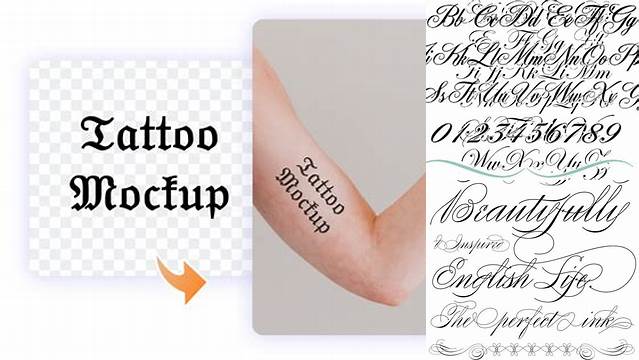
Thin Cursive Tattoo Fonts Generator: Design Your Elegant Tattoo
Are you guys looking to get some ink that's both elegant and personal? You've probably stumbled upon the world of thin cursive tattoo fonts! These fonts are seriously trending, and for good reason. They offer a delicate and graceful way to express yourself through body art. This guide dives deep into everything you need to know about thin cursive tattoo fonts and how a generator can help you find the perfect design. We'll explore the nuances of these fonts, why they're so popular, and how to use a generator to bring your tattoo vision to life. So, let's get started and uncover the beauty of thin cursive tattoos!
What Makes Thin Cursive Fonts So Special?
Alright, let's talk about what makes thin cursive tattoo fonts so darn appealing. These fonts have a unique charm that combines sophistication with a touch of intimacy. Unlike bolder, more blocky fonts, thin cursive fonts exude a sense of fragility and elegance. This makes them perfect for tattoos, especially those meant to be meaningful and personal. When it comes to expressing feelings, names, quotes, or special dates, thin cursive fonts can convey a whole lot of emotion. The flowing lines and delicate strokes create a visually stunning effect, making the tattoo appear like a piece of art that flows seamlessly on your skin. They often look like handwritten notes, adding a personal touch that feels extra special. Thin cursive fonts aren't just about aesthetics; they're also versatile. They can be adapted to various styles and sizes, whether you're looking for a small, discreet tattoo or a larger, more elaborate design.
Consider the way the letters dance across your skin, like a gentle whisper that's always there, reminding you of what's important. This style of font is also super popular because it tends to age well. While some tattoo styles can fade or blur over time, the simplicity and fine lines of thin cursive fonts often retain their clarity, making them a good option for long-term wear. Plus, with advancements in tattoo technology and the skills of experienced tattoo artists, the fine lines can be crafted with incredible precision. This means the intricate details and elegant curves of the font can remain crisp and defined for years to come. Think about it: a beautiful, timeless piece of art that tells a story or honors someone or something you love. This is the magic of a well-chosen thin cursive tattoo.
Why Choose Thin Cursive for Your Tattoo?
So, why should you opt for a thin cursive tattoo? There are many reasons! First off, it's a classic choice that’s always in style. Unlike some tattoo trends that come and go, thin cursive fonts have a timeless appeal. They’ve been popular for years and will likely remain so for many more, making them a safe bet if you want a tattoo that you won't regret down the road. Secondly, their elegance is unmatched. The flowing script adds a touch of sophistication that is hard to beat, making your tattoo look like a piece of beautiful artwork. The delicate lines and curves create a sense of movement and grace, enhancing the overall visual impact. The versatility of thin cursive fonts is another big plus. They can fit any design idea, and the design can be adapted to fit any body part. You can have it as a small, delicate piece on your wrist or a larger, more elaborate design on your back – the choice is yours! Furthermore, thin cursive fonts are very customizable. You can personalize your tattoo by choosing a font that reflects your personality. With so many fonts to choose from, you're sure to find one that matches your style.
When you are looking for a tattoo font, think about what you want to express. Are you going for a romantic vibe? Maybe you want something that feels personal and intimate. A thin cursive font can deliver all of this and more. It gives you a way to wear your heart on your sleeve (or your arm, back, or wherever you choose!), allowing you to carry a constant reminder of what matters most to you. It's not just a tattoo; it's a statement of who you are and what you hold dear.
How a Thin Cursive Tattoo Fonts Generator Works
Alright, let's break down how a thin cursive tattoo fonts generator works its magic. These tools are like your personal digital font library, offering a vast selection of cursive fonts to browse and experiment with. The basic principle is super straightforward: you type in the text you want for your tattoo, and the generator instantly transforms it into various cursive font styles. Most generators provide a live preview, allowing you to see how your text will look in different fonts before you commit. This means you can try out several options to see what you like best. Generators usually have options to tweak things like font size, spacing, and sometimes even the slant or thickness of the lines. This helps you tailor the font to your taste, making sure it fits the style you want. Some generators also let you download the font as an image file, which you can then take to your tattoo artist. This gives your tattoo artist a clear visual reference, ensuring they can accurately replicate the design on your skin.
When you're choosing a generator, look for one that offers a wide variety of cursive fonts. This way, you have more options to choose from and can find the perfect font for your tattoo. Make sure the generator also offers customization options like size, spacing, and style. This way, you can make sure the font looks exactly how you want it to. A great generator can save you tons of time and hassle in the design process. Instead of searching through endless font options, you can see your text in various styles right away. This allows you to refine your vision and make sure your design looks perfect. If you're unsure, many generators offer tutorials or guides to help you get started. With the right generator, you can turn your tattoo idea into reality, making the process both fun and efficient.
Step-by-Step Guide to Using a Generator
Let's walk through how to use a thin cursive tattoo fonts generator step-by-step, so you'll be a pro in no time. First, find a reputable generator. There are tons out there online, so do a bit of research to find one that's user-friendly and offers a good variety of fonts. Next, enter your text! Type in the words, names, or phrases you want to include in your tattoo. Keep it simple and clear, and double-check for any typos! After entering your text, browse through the available fonts. Generators usually display your text in multiple font styles, giving you a visual preview of each option. Take your time and try different fonts until you find one that resonates with you. Many generators allow you to customize the font. You might be able to adjust the size, spacing, and even the slant of the letters. This is your chance to fine-tune the design until it’s perfect. Once you've found the font and settings you like, save the design. You can usually download it as an image file. This is what you'll give to your tattoo artist as a reference. Before you get inked, double-check the design with your artist. They can offer advice on placement and size, ensuring the tattoo looks great on your skin. Also, make sure your artist is experienced in fine-line tattoos. This helps ensure a perfect result. That’s it! You've successfully used a font generator to design your custom tattoo.
Tips for Choosing the Perfect Thin Cursive Font
Choosing the perfect thin cursive font for your tattoo is a personal journey. Here's some helpful tips to help you along the way. First, consider the message! Think about the meaning behind your tattoo. Are you honoring a loved one, expressing a personal motto, or celebrating a special date? The font you choose should reflect the sentiment. For instance, a more elegant font might suit a name, while a more casual style could work well for a quote. Think about your personal style. Do you gravitate towards classic elegance or something more modern and edgy? Your tattoo should align with your overall aesthetic. Browse through different font styles to find one that feels like you. Pay attention to the details of the font. Look at the letterforms, the spacing, and the overall flow of the text. Ensure the font is easy to read and has a nice visual balance. Choose a font that is durable. Fine lines can be beautiful, but they require skill and experience from the tattoo artist to ensure they last. Select a font that's detailed enough to be visually appealing, but not so intricate that it might blur over time. Get feedback from others! Sometimes, it's helpful to get a second opinion. Show your design to friends, family, or even your tattoo artist to get their thoughts and suggestions.
Also, think about the placement and size. Where do you want your tattoo? How big do you want it to be? These factors will influence the font you choose. A smaller tattoo might require a simpler font, while a larger tattoo can accommodate more detail. Consider the long-term effects. Tattoos can fade, blur, and change over time. Think about how the font will age and whether it will still look good years from now. Remember to choose a font that you truly love and that resonates with you. It is on your skin forever! Trust your gut and choose something that feels right for you. This process is all about personal expression and finding a design that you'll be happy with for the rest of your life. Do your homework, take your time, and embrace the journey!
Conclusion: Embrace Your Cursive Tattoo
There you have it, guys! A complete guide to thin cursive tattoo fonts and how to find the perfect design using a generator. Remember, your tattoo should be a reflection of your personality. By taking the time to explore different fonts, consider your placement options, and work with a talented artist, you can create a stunning piece of body art that you'll love for years to come. So, go forth, explore your options, and embrace the beauty of thin cursive tattoos. It's a beautiful and expressive way to wear your story on your skin. Happy inking, and enjoy the journey of self-expression! Your perfect tattoo is just a font and an appointment away.